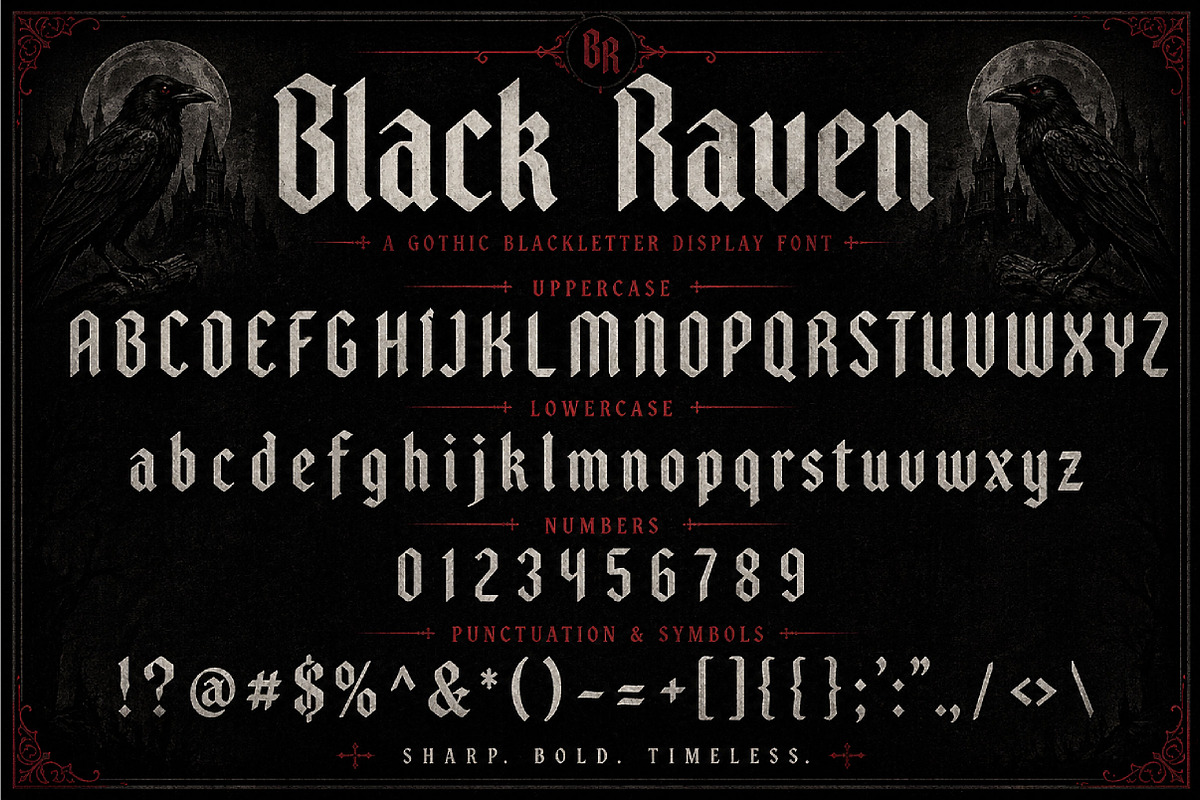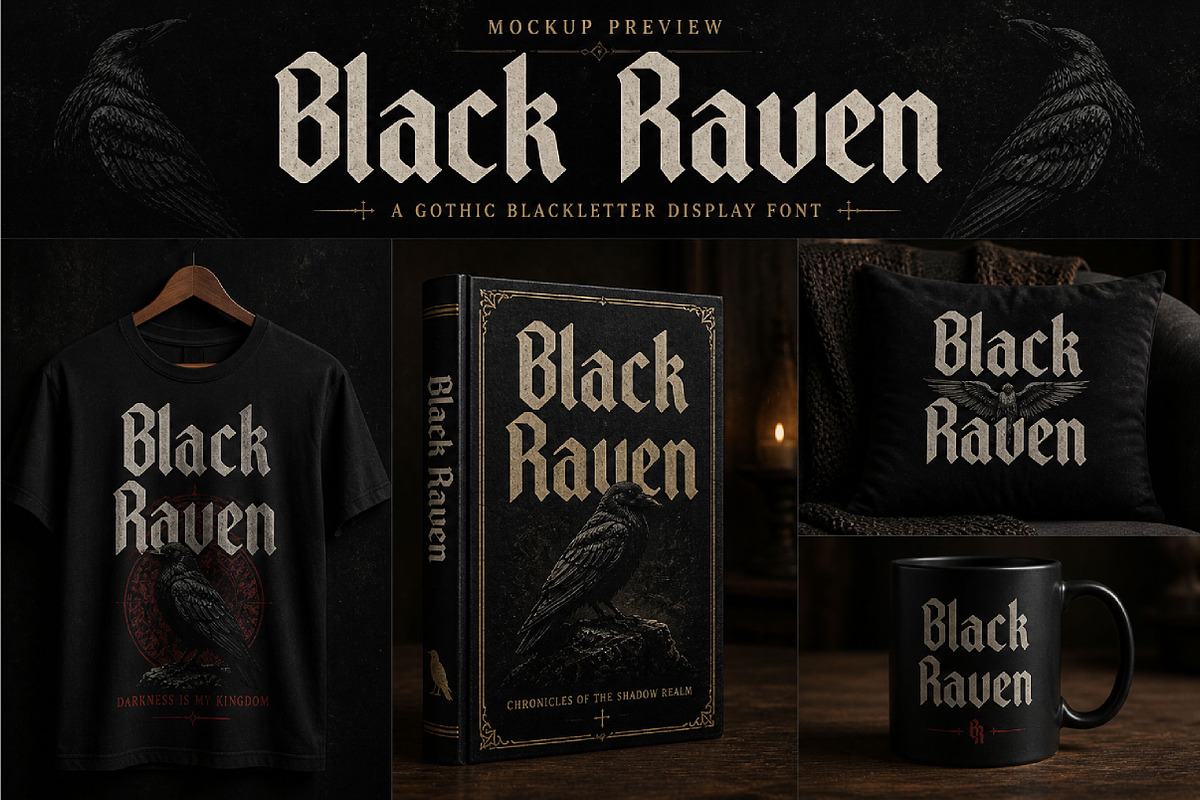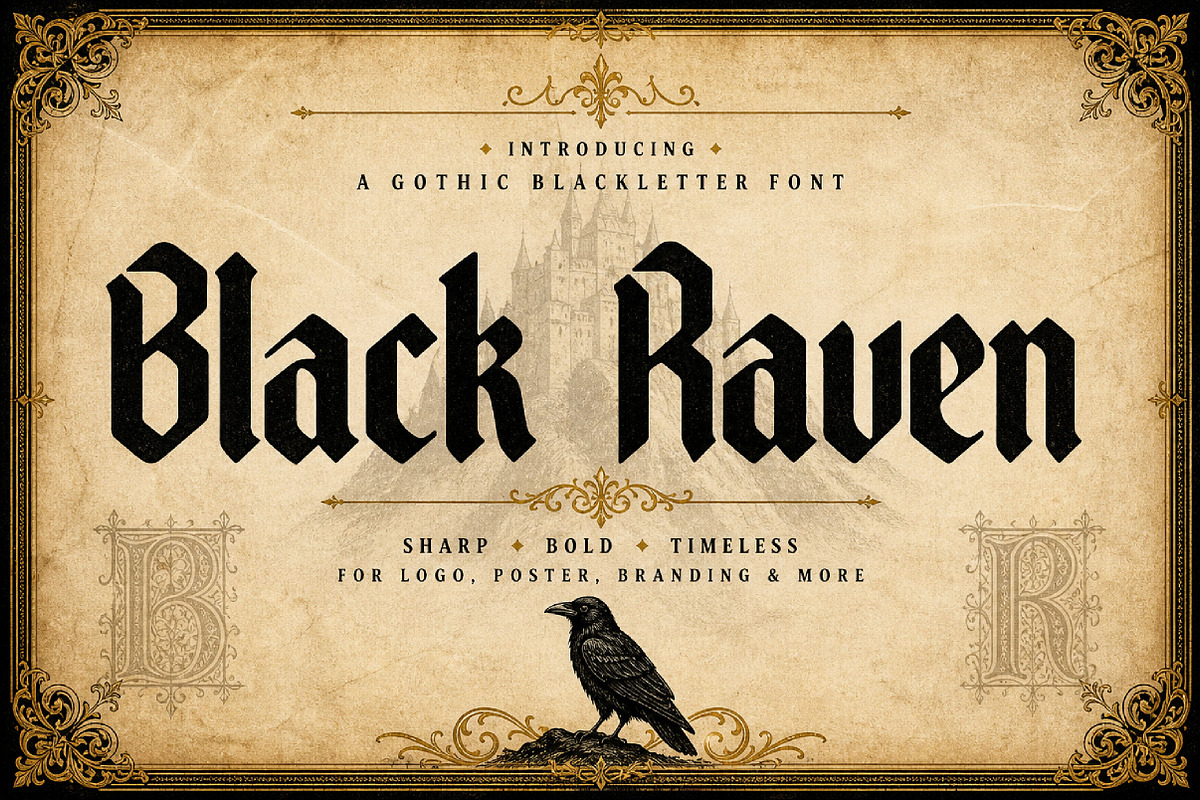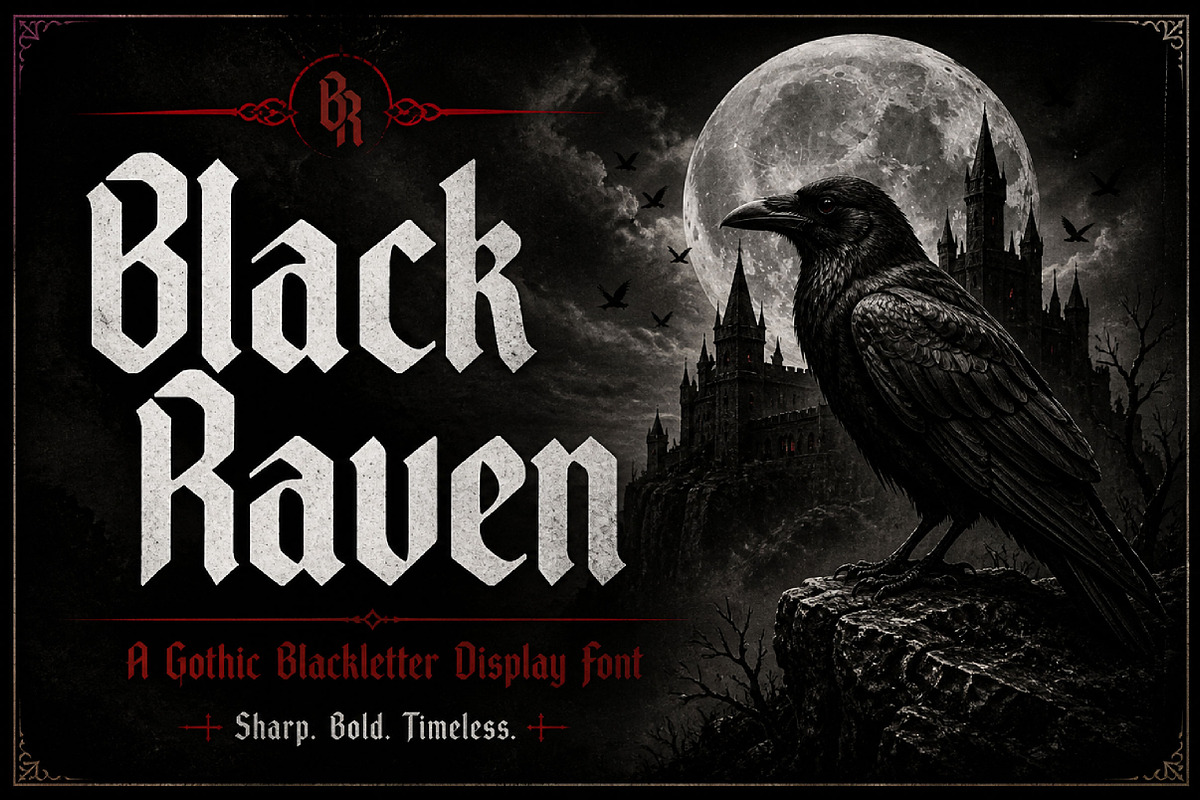
Black Raven
Black Raven – Gothic Blackletter Display Font
Black Raven is a bold, dark, and dramatic blackletter font, perfect for gothic designs, logos, posters, album covers, tattoos, and vintage-inspired creative projects.
Black Raven is a striking blackletter display font inspired by classic gothic and Old English typography. With its sharp edges, strong vertical strokes, and bold structure, this font creates a powerful and mysterious look that instantly captures attention.
Its dark and dramatic personality makes Black Raven perfect for projects that need a bold and atmospheric visual identity. Whether you are designing logos, posters, album covers, tattoo-style artwork, apparel, packaging, or editorial headlines, this font helps your typography stand out with intensity and elegance.
The clean yet ornamental letterforms maintain readability while preserving a strong gothic character. Suitable for both print and digital use, Black Raven is an excellent choice for designers who want a font that feels classic, edgy, and full of attitude.
Gothic and dark-themed designs
Old English typography
Logos and branding
Posters and headlines
Album covers
Tattoo-style graphics
Apparel and merchandise
Packaging design
Editorial titles
Statement display typography
Uppercase letters
Lowercase letters
Classic blackletter style
Sharp and bold letterforms
Dark and dramatic appearance
Perfect for display use